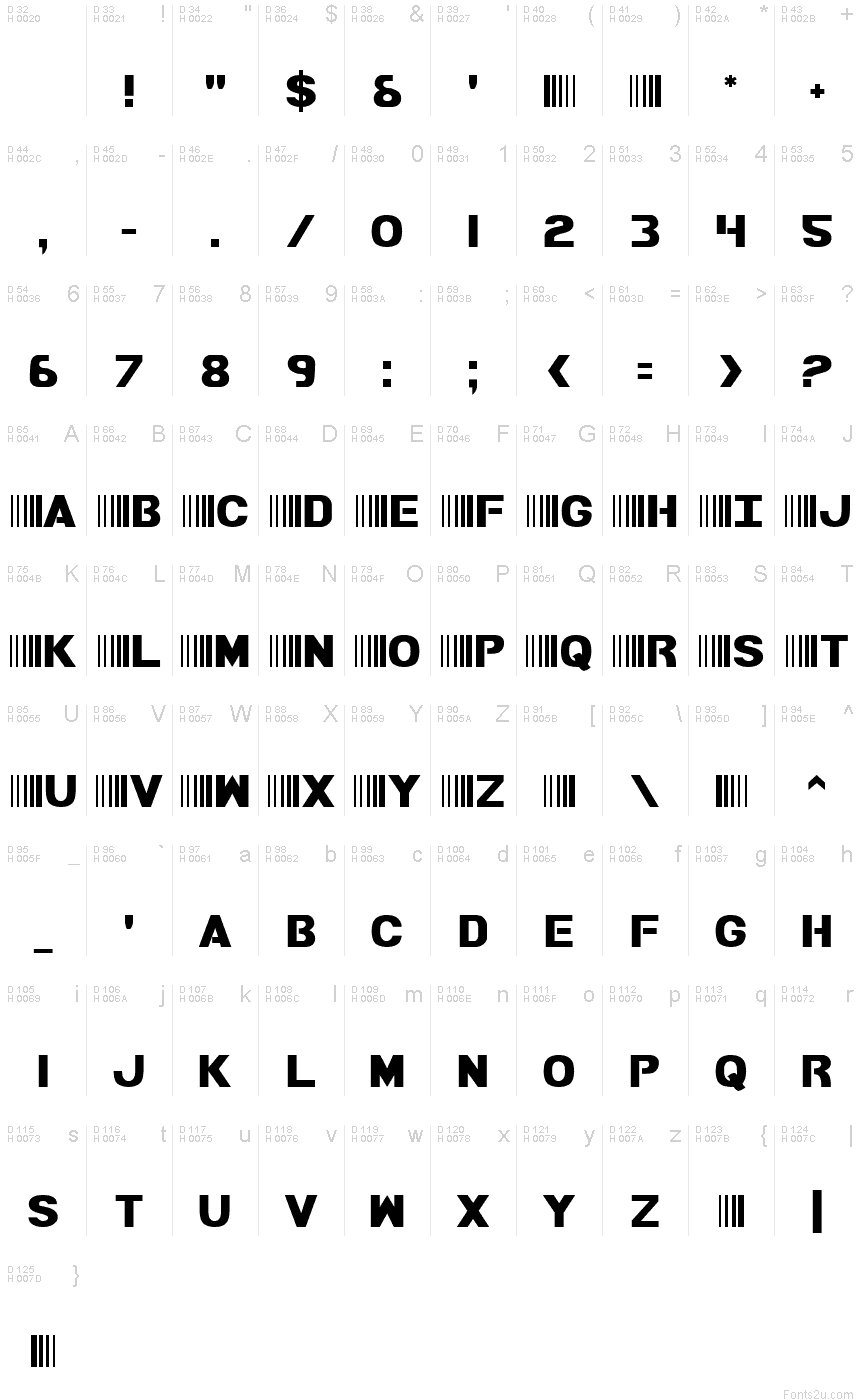
Bamf
Bamf font by Iconian Fonts is a free retro display typeface that hits like its name: bold, loud, and unapologetically graphic. The letters are carved into chunky, squared forms, then sliced with tight vertical gaps that feel like barcode bars or old-school synth equalizers. It’s rigid and mechanical, yet the rhythm of those stripes adds a kinetic, almost flickering energy that jumps off the page or screen.
Using Bamf, your titles don’t just sit there—they shout. This free font works beautifully for sci‑fi posters, arcade‑style game titles, tech logos, event branding, album covers, and bold social graphics. Keep Bamf big and give it space to breathe, then pair it with a clean geometric sans in smaller text to balance its heavy, ultra-graphic presence.